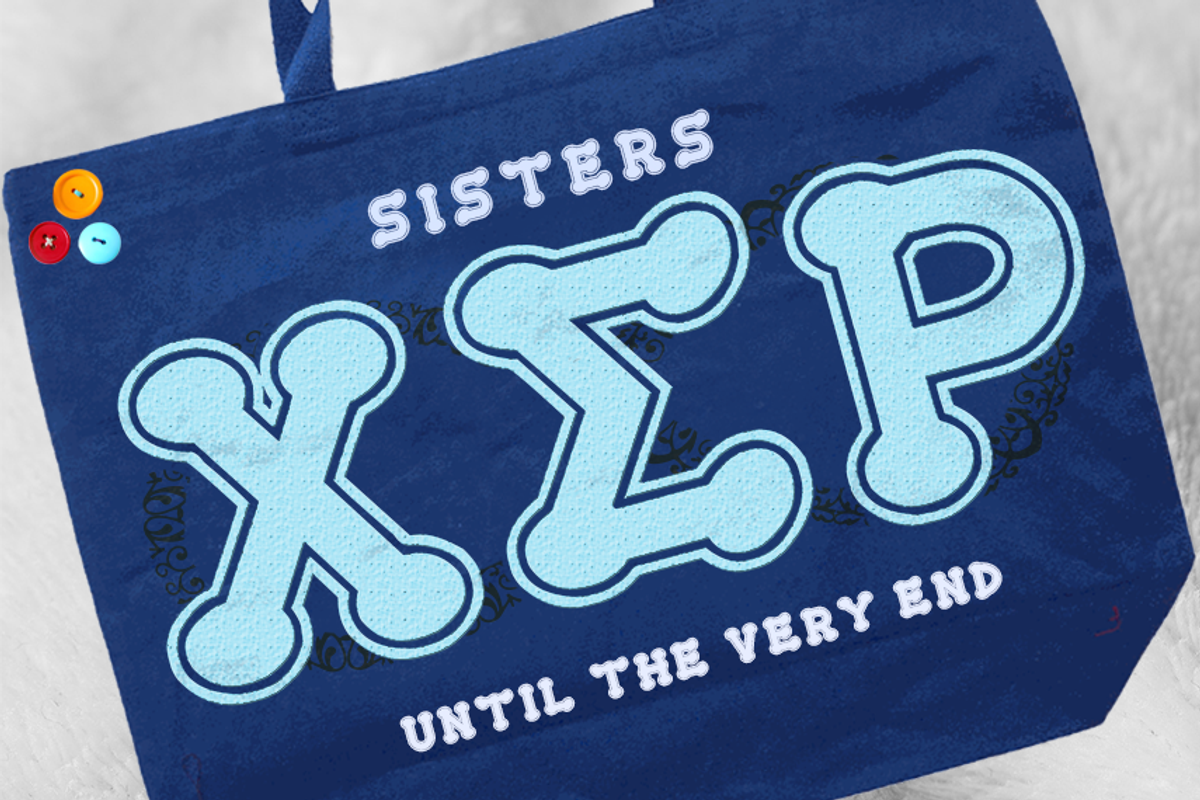
Applique Greek Font Set Free Download
Applique Greek Font Set Free Download is a beautifully stylized typeface collection inspired by classical Greek lettering with a modern twist. Ideal for educational materials, historical branding, themed packaging, tourism campaigns, and mythology-inspired projects, the Applique Greek Font Set adds an authentic and artistic Hellenic touch to your typography.
Designed with intricate details and elegant proportions, Applique Greek Font Set Free Download captures the timeless beauty of ancient scripts while maintaining legibility and versatility for contemporary design. Whether you're working on a cultural event poster or a Greek restaurant logo, this font set delivers heritage and sophistication in one stylish package.